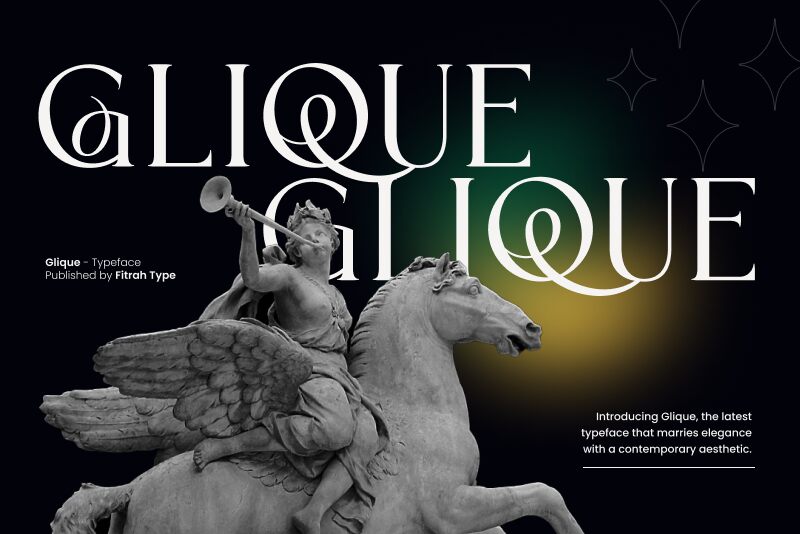
Glique font, crafted by Fitrah Type, is a standout serif that blends classic elegance with modern flair. Its refined strokes and sophisticated serifs make it perfect for adding a touch of class to your projects. This font’s striking aesthetics capture attention, making it suitable for headlines and titles where you want to leave a lasting impression.
With its unique style, Glique is ideal for editorial design, branding projects, and luxury packaging. Its versatility allows designers to employ it in both digital and print media effortlessly.
Whether you're looking to create an upscale brand identity or elevate your magazine layouts, the Glique font offers a combination of beauty and readability. Elevate your designs today by exploring the possibilities with this free font download.